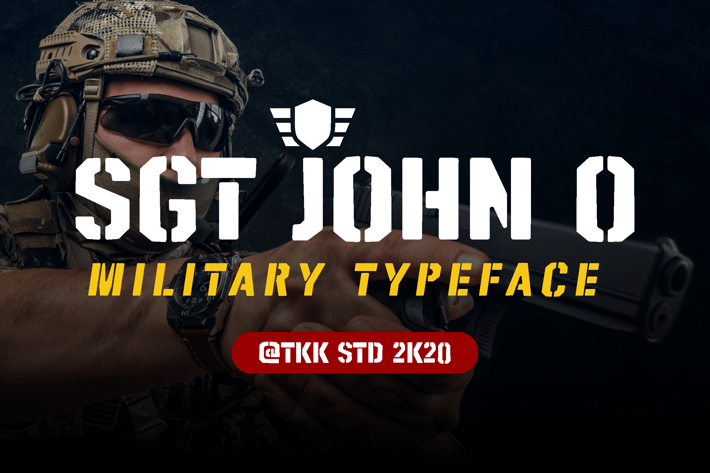
SGT. Jhon O - Stencil army font
SGT JOHN O – A Bold Military Typeface for Tactical Impact
SGT. Jhon O is a gritty military-inspired display typeface designed for tactical intensity and masculine branding. Featuring sharp angles, square terminals, and a heavy-weighted structure, it echoes the discipline and raw force of armed forces visuals. This typeface delivers a bold, geometric, and utilitarian feel, ideal for gaming titles, combat-themed posters, survival gear, and tactical branding. The bold spacing and wide proportions ensure maximum legibility even in high-impact design environments.
If you're building a branding project that needs authority, force, or a battle-ready tone, SGT. Jhon O brings instant military-grade edge. From military-style gaming titles and esports overlays to tactical apparel and cinematic intros, this typeface grips your audience with power and structure. Its bold caps and commanding style capture the essence of strength, hierarchy, and action—perfect for projects that demand attention.
Key Features :
Combat-Ready and High-Impact
- Strong, geometric construction with military-stencil influence
- All-caps design for powerful hierarchy and presence
- Excellent for dark mode UI, game branding, product labels
Built for Tactical Branding
- Highly legible under motion and layered effects
- Works across digital and print platforms—posters, stream overlays, packaging
- Instantly evokes a commanding tone in every application